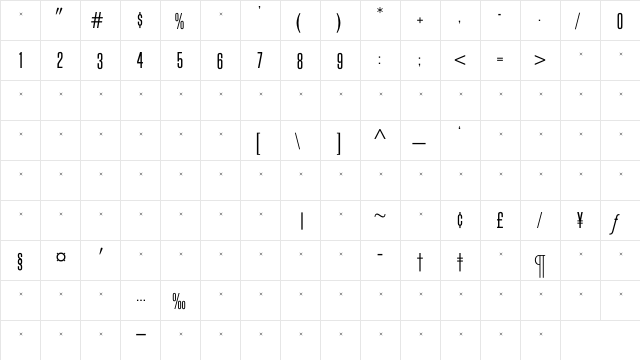
BlockGothicLightExtraCondTab Regular Font Preview
Design Context for BlockGothicLightExtraCondTab Typeface
BlockGothicLightExtraCondTab has the quiet confidence of well-executed sans-serif typography: versatile, unobtrusive, and dependable at any size. The delicate stroke weight brings airiness and refinement to layouts. Its narrow stance lets it pack a punch even in space-constrained designs.
A natural fit for high-end product packaging, luxury brand identities, and refined web typography.
Font Pairing: Pair BlockGothicLightExtraCondTab with a medium or bold serif for headlines — the weight contrast creates an elegant, high-end feel.
Pro Tip: Use BlockGothicLightExtraCondTab tightly set in headlines and banners — its condensed proportions make it ideal for maximum impact in minimum horizontal space.